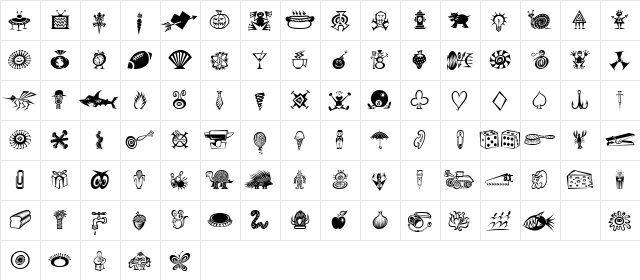
DF Daves Raves One ITC Regular
| Foundry | International Typeface Corporation |
| Designer | David Sagorski |
Design Context for DF Daves Raves One ITC Typeface
DF Daves Raves One ITC is a composed and adaptable typeface that performs quietly and consistently across a wide range of design contexts.